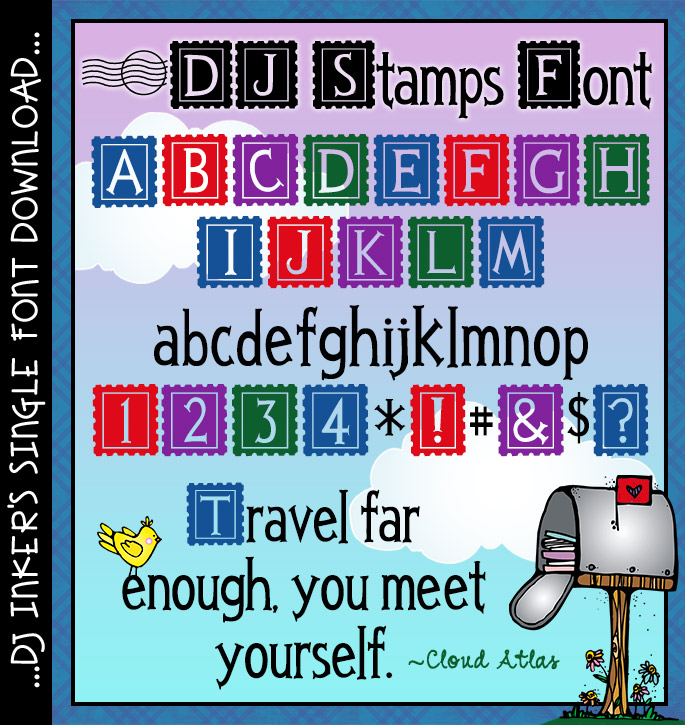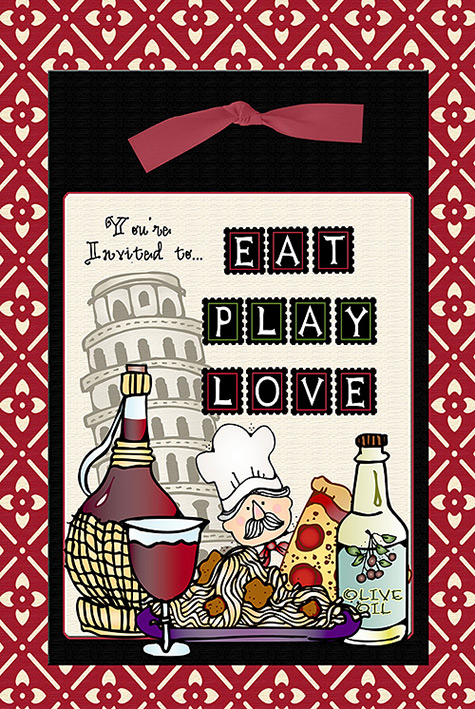
DJ Stamps Font Download
Do you like writing letters, post cards or travel journals? Then you'll love our DJ Stamps font! Each letter has been neatly placed on a postage stamp to help you type-up something clever. Perfect for home, office, school or just for fun. Enjoy!
P.S. Here's a fun tip: use the ~ key for the postage meter symbol.